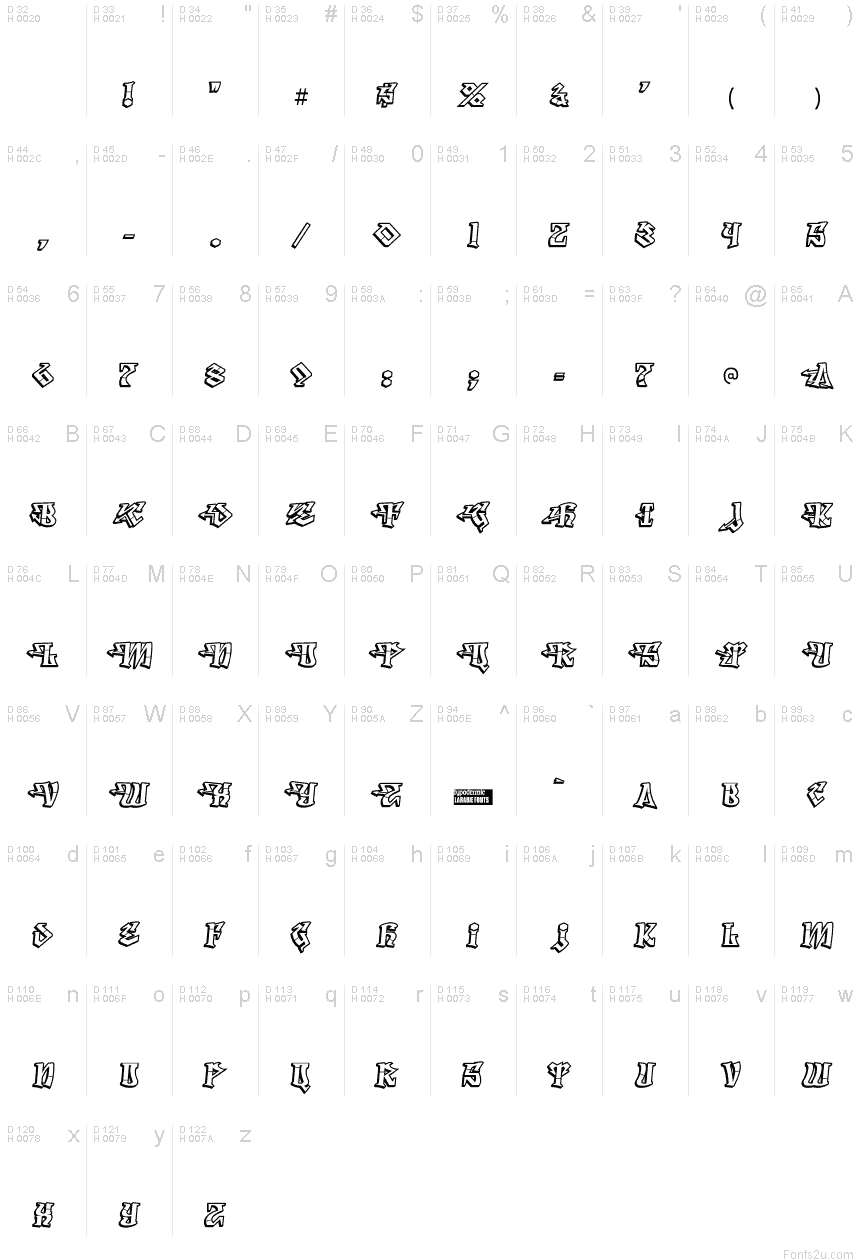
Degrassi
Degrassi font by Ray Larabie is a free graffiti 3D typeface that hits with the energy of a fresh tag on a brick wall. Bold, spiky letters twist and bend with dramatic inner contours, giving each word a carved, layered look that almost pops off the page. The thick black outlines feel inky and hand-drawn, with just enough roughness to keep things raw and streetwise rather than polished or corporate.
Using Degrassi, you get instant attitude for hip-hop flyers, underground event posters, album covers, streetwear logos, skate or BMX branding, and game titles that need a gritty edge. This free font shines when used big and loud, letting those angular forms and 3D-style shapes do the shouting. Pair it with a clean, neutral sans serif for small text to keep your layouts readable while Degrassi carries the attitude.